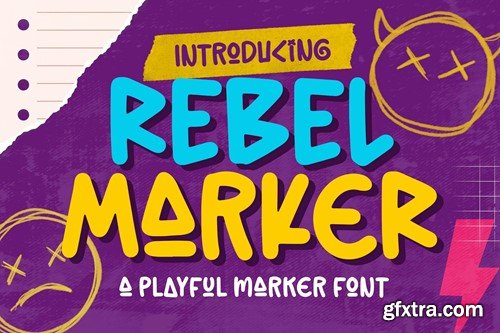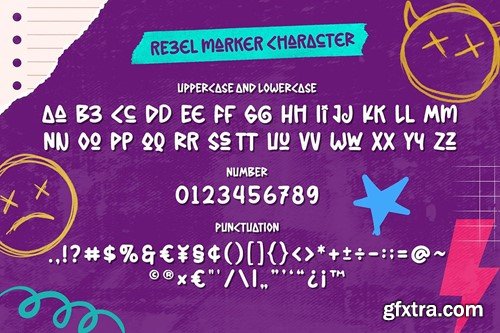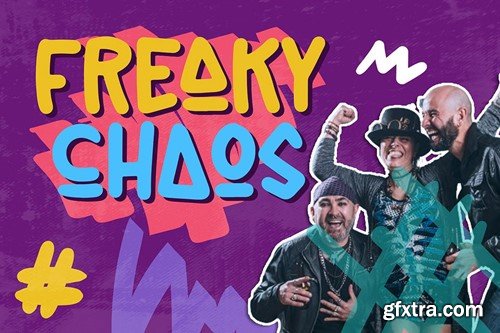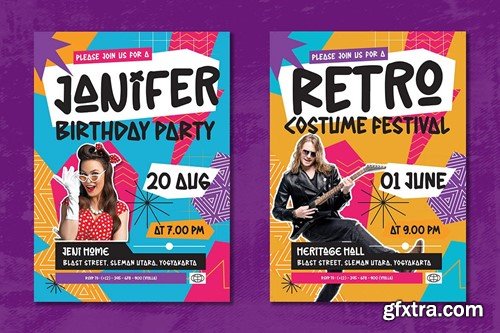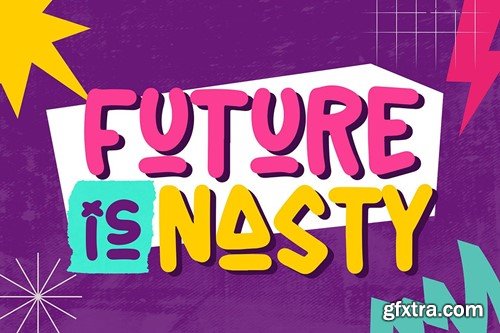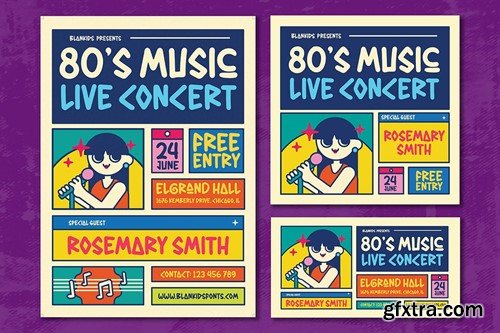
Rebel Marker a Playful Marker Font TWFVaPlayfulFontTWFACQY
“Rebel Marker” is a font that defies conventions and electrifies your design with its distinctive blend of modern playfulness and punk edge. With its rounded style and fresh handwriting flair, this font exudes a fearless attitude while still reveling in its punk uniqueness. Each letter carries a retro vibe reminiscent of the groovy 80s and 90s, while also touching upon the futuristic essence of the early 2000s. Unlike ordinary fonts, “Rebel Marker” dares to push the boundaries and express your creativity with bold leaps. With every stroke, it brings forth a sense of strength yet remains inviting to explore. Perfect for those seeking more than just a font but a statement of style that pays homage to the past while forging ahead into the future. So, dare to venture into the realm of design with “Rebel Marker” to discover punk perfection in every project. Files Include :